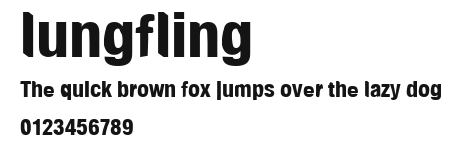
• Font Name: lungfling
• Font Style: fucked
• Full Font Name: lungfling fucked
About lungfling.ttf
lungfling.ttf is a modern, elegant sans-serif font designed for ultimate readability and visual harmony. Perfect for branding, headlines, web design, and print materials.